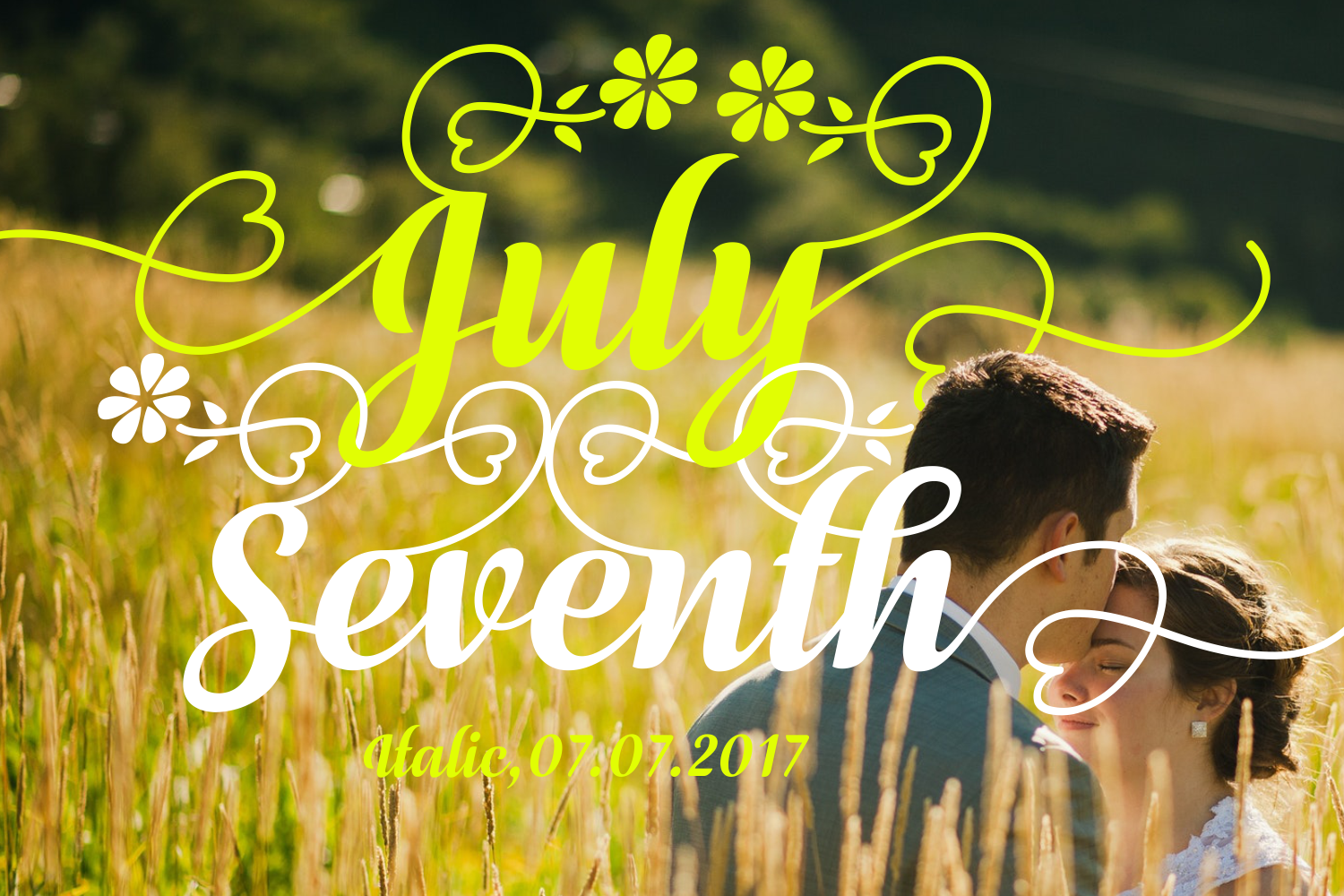
About July Seventh Italic Font
July Seventh is theĀ italic version of the July Seventh font.
The July Seventh font is a stunning font that comes packed with over a 1000 unique handmade glyphs. We advice you to check out the specimen to see everything that is included in this beautiful font.
It comes stuffed with extra, PUA encoded bonus characters with beautiful swashes. These swashes offer a mix of regular long swirly lines, swashes ending in little hearts and even swashes ending in decorative flowers.
The July Seventh font will work for any occasion that requires a stunning script. It can be invites, (birthday) cards, personal business cards, design for your store front or menu and much more.
With the incredible amount of work that went into this font, you are guaranteed to save loads of time. With this font in your arsenal you will be able to tackle every project, big or small.